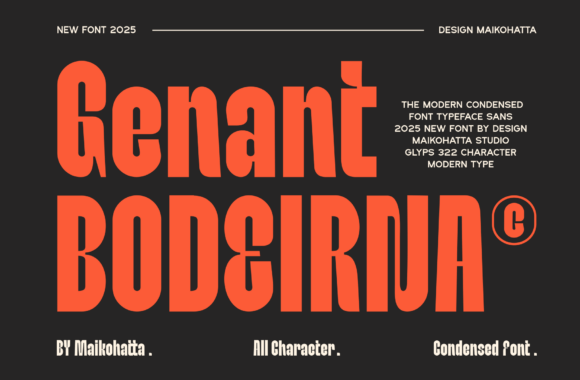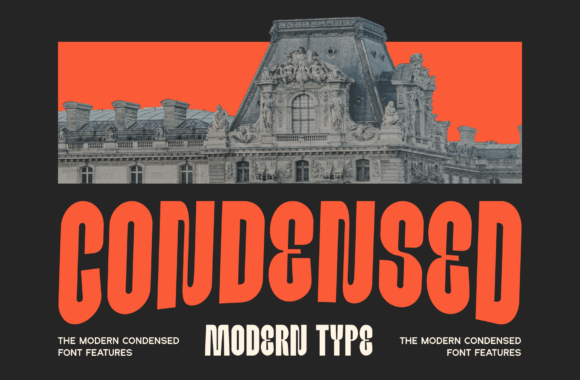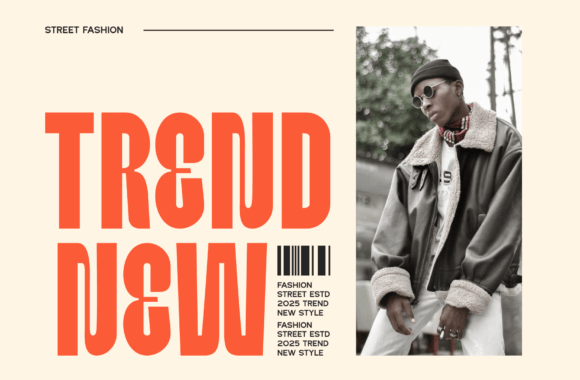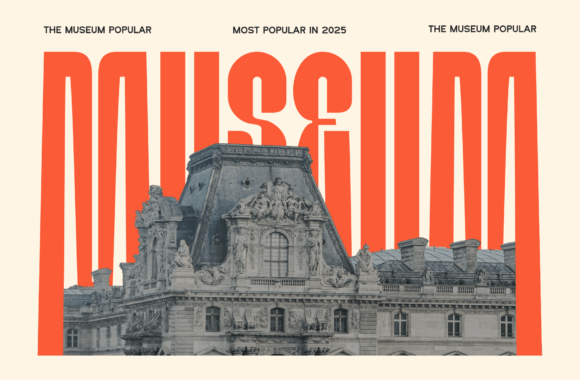
Genant Bodeirna Font
About the Genant Bodeirna Font
Make a bold statement with Genant Bodeirna Font, a powerful and memorable font. Genant Bodeirna is a striking modern condensed sans-serif typeface. Its tall, narrow structure and bold stance make it ideal for editorial layouts, branding, posters, and anything that needs high-impact text with a contemporary edge.
Genant Bodeirna excels in headlines, short impactful phrases, and logos where its bold presence commands attention. It’s a strong choice for branding projects aiming for a modern, sophisticated feel, particularly in industries like technology, fashion, or finance. However, its condensed nature makes it unsuitable for body text or long paragraphs; readability suffers at smaller sizes.
For optimal visual harmony, pair Genant Bodeirna with a clean sans-serif like Open Sans for body copy, balancing its boldness with a legible counterpart. Alternatively, a classic serif like Garamond adds a touch of elegance and contrasts its geometric structure, creating a sophisticated yet contemporary pairing. Avoid pairing it with other highly stylized fonts to prevent visual clutter.
The font’s personality is assertive and contemporary, conveying confidence and a sense of forward momentum. It’s best suited for brands projecting strength, innovation, and a modern aesthetic.